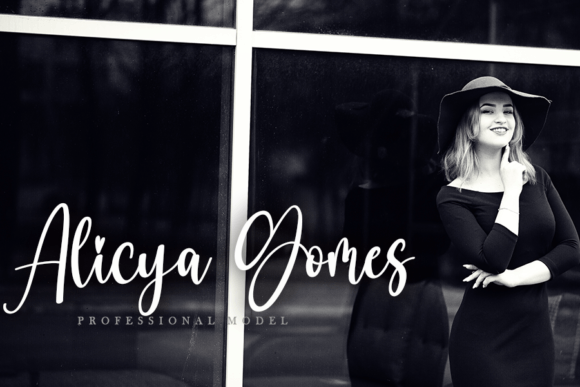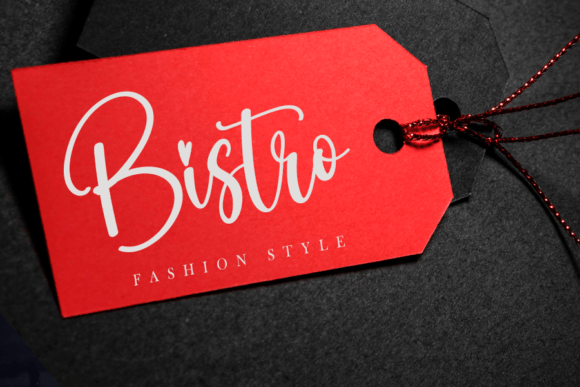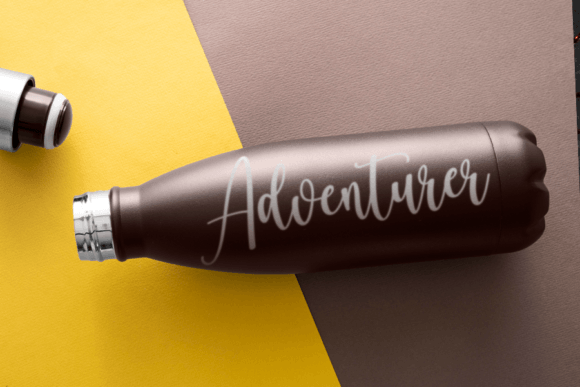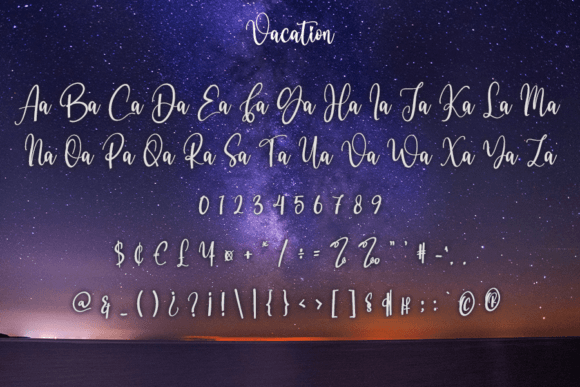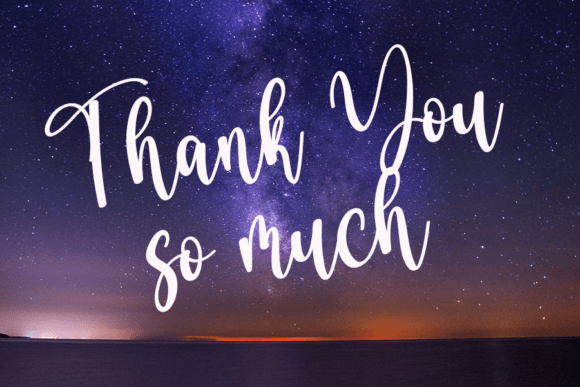
Add elegance and style with the Vacation font. This trendy handwritten script combines a contemporary atmosphere with the timeless beauty of classic calligraphy. It enhances any creative project with sophistication and class.
The Vacation font is ideal for various design applications. Whether you need logos, invitations, branding, social media posts, or packaging, this font adds a polished and refined look. Its impeccable form ensures your designs stand out.
Each character is crafted with smooth, flowing lines inspired by classic calligraphy. This blend of tradition and modernity gives your projects a unique and elegant appearance. The font balances readability with artistic flair, making it suitable for headlines, quotes, and decorative text.
Despite its decorative style, the Vacation font maintains excellent readability at all sizes. Whether used for bold titles or subtle details, it adapts perfectly. Its versatility makes it ideal for a wide range of creative projects.
Using the Vacation font will help your designs make a lasting impression. It adds sophistication and charm. If you want your work to look professional and stylish, the Vacation font is an excellent choice.
In summary, the Vacation font fits many creative needs. From branding to social media and packaging, it brings elegance and uniqueness. Download it today and create stunning, memorable designs with a trendy handwritten script.